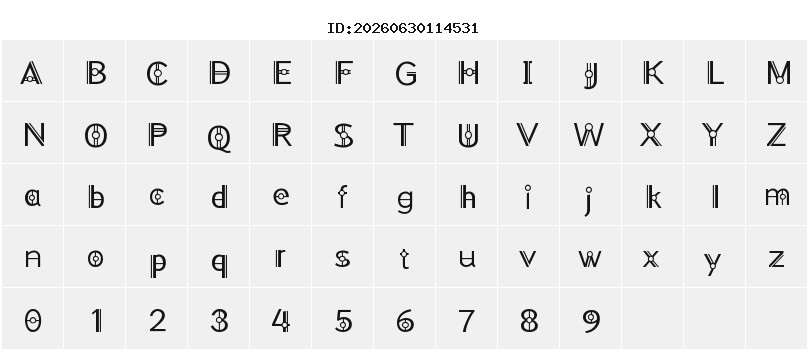
Aa扑朔迷离拼音体 (非商业使用) Preview
• Font Name: Aa扑朔迷离拼音体 (非商业使用)
• Font Style: 常规
• Full Font Name: Aa扑朔迷离拼音体 (非商业使用)
• PostScript Name: AaPushuomilipinyinti(Non-CommercialUse)
• Character Count: 12080
• Designer: Aa
• Description: AaPushuomilipinyinti (Non-Commercial Use) is a fantastic font with excellent features designed for user interfaces and electronic communications.
About Aa扑朔迷离拼音体 (非商业使用).ttf
Aa扑朔迷离拼音体 (非商业使用).ttf is a modern, elegant sans-serif font designed for ultimate readability and visual harmony. Perfect for branding, headlines, web design, and print materials.